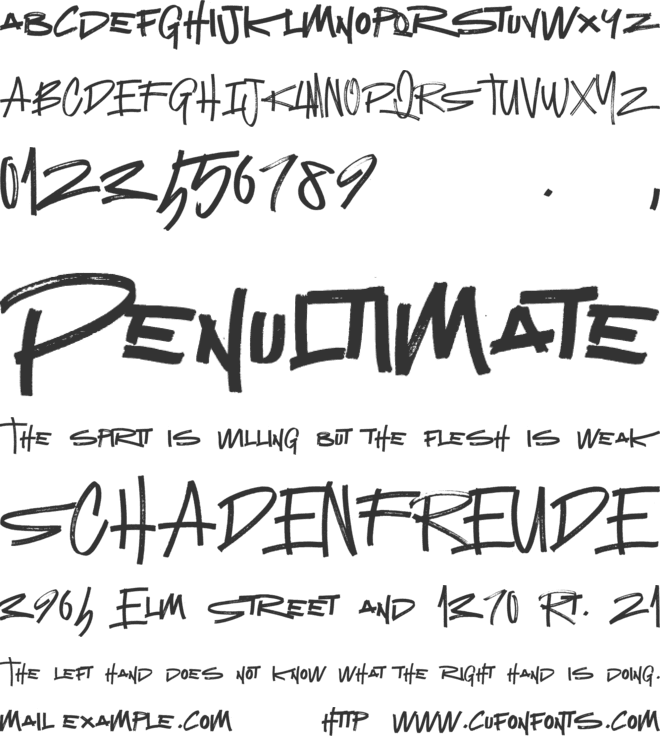
Network Free Version Font
Yasir Ekinci
This is FREE version of Network Font! Original FULL Pack has 6 different fonts. These are: 4 Network + 1 Hyper Script + 1 Supreme Swashes font.
World's Best Graffiti and Non-Graffiti Styled Typeface EVER!